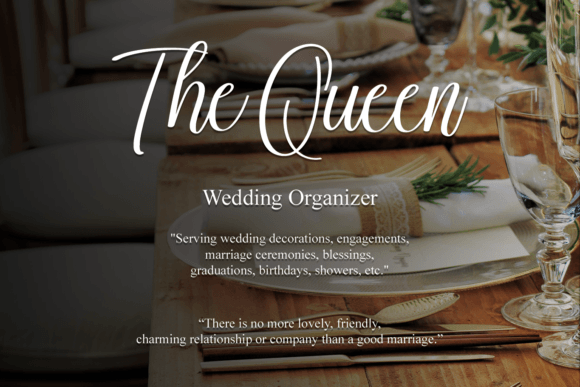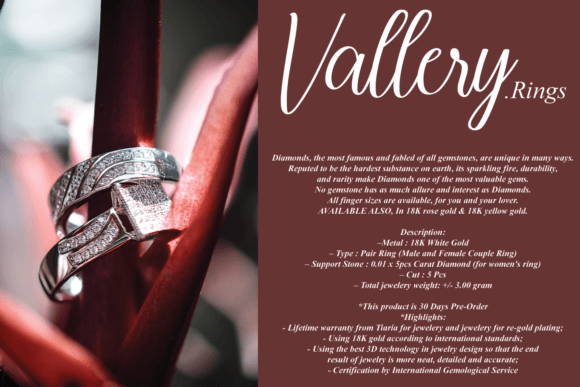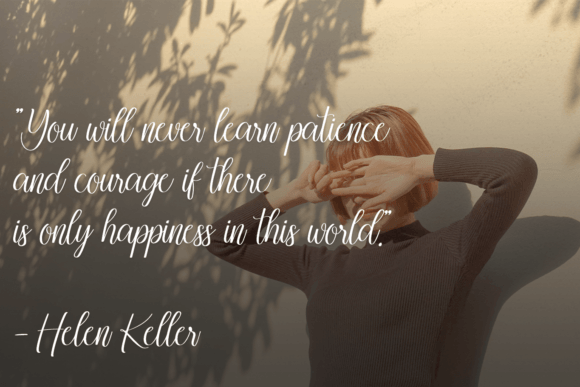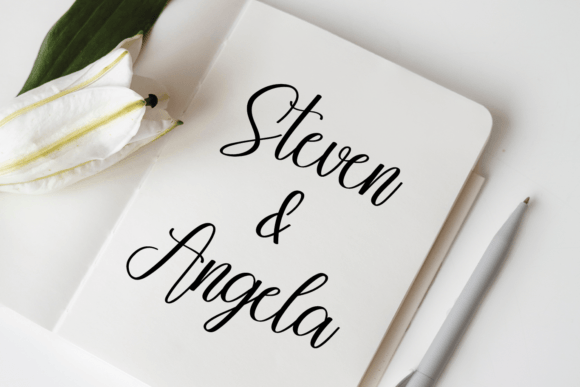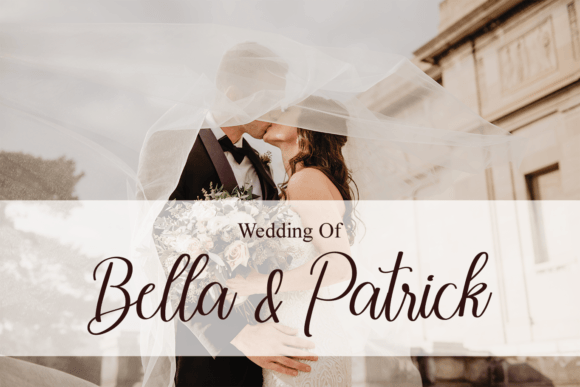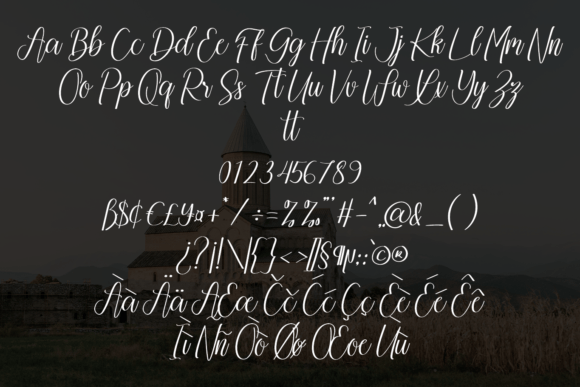
Unleash the Spooky Spirit with Halloween Font: A Masterpiece of Elegance and Whimsy
As the spookiest time of the year approaches, designers and crafters are on the lookout for the perfect typography to add a touch of eerie elegance to their projects. Look no further than the Halloween Font, an exquisite handwritten font that is sure to cast a spell on your audience. Masterfully designed to become a true favorite, this font strikes the perfect balance between classy calligraphic influences and a contemporary, fresh feel.
The Essence of Halloween Font
Halloween Font is more than just a typography; it’s an experience. With its intricate strokes and whimsical flair, this font embodies the essence of the Halloween spirit. Whether you’re working on a project for a client or creating something for personal enjoyment, Halloween Font is the perfect choice to add a dash of sophistication and playfulness.
Design Features and Characteristics
So, what makes Halloween Font stand out from the rest? Here are some of its key features and characteristics:
- Exquisite Handwritten Design: Halloween Font boasts a beautifully crafted handwritten design that exudes elegance and charm.
- Classy Calligraphic Influences: The font maintains its classy calligraphic influences, giving it a sophisticated and refined feel.
- Contemporary and Fresh: Despite its classic roots, Halloween Font feels contemporary and fresh, making it perfect for modern designs.
- Versatile: This font is incredibly versatile, suitable for a wide range of projects, from invitations and greeting cards to posters and social media graphics.
Halloween Font is a dream come true for designers and crafters looking to add a touch of magic to their projects. Here are some ways you can use this amazing font:
- Halloween Invitations and Party Decor: Create spooky and sophisticated invitations, party decor, and social media graphics that will leave your guests in awe.
- Crafting and Scrapbooking: Add a touch of elegance to your scrapbooking and crafting projects, such as photo albums, cards, and gift tags.
- Branding and Marketing: Use Halloween Font to create eye-catching logos, business cards, and marketing materials that will help your brand stand out.
Tips and Tricks for Using Halloween Font
To get the most out of Halloween Font, here are some tips and tricks to keep in mind:
- Pair it with Other Fonts: Experiment with pairing Halloween Font with other fonts to create a unique and eye-catching combination.
- Play with Colors and Textures: Add depth and interest to your design by playing with different colors and textures.
- Use it for Headlines and Titles: Halloween Font is perfect for headlines and titles, where its elegant and whimsical feel can shine.
In conclusion, Halloween Font is a true masterpiece of elegance and whimsy, perfect for designers and crafters looking to add a touch of magic to their projects. With its exquisite handwritten design, classy calligraphic influences, and contemporary feel, this font is sure to become a favorite in your collection. So why wait? Fall in love with Halloween Font and bring your projects to the highest levels!
Whether you’re a seasoned designer or a crafting enthusiast, Halloween Font is sure to cast a spell on your audience. So go ahead, get creative, and unleash the spooky spirit with Halloween Font!